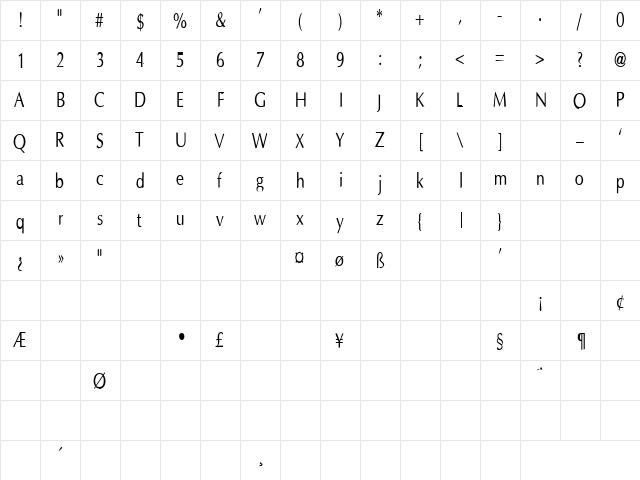
Friends 25 Regular
Design Context for Friends 25 Typeface
Friends 25 is a composed and adaptable typeface that performs quietly and consistently across a wide range of design contexts.